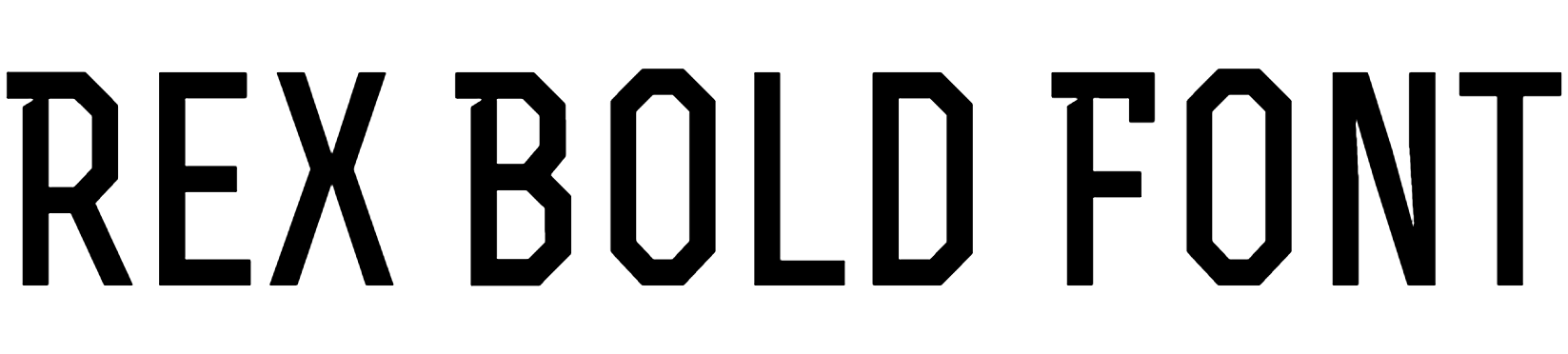
Rex Bold
Rex Bold is a fancy font created by Svet Simov (2012). Bold and full of character, it's built to stand out rather than blend in. You can download it for free and test it with your own words in the preview above.
- Designer: Svet Simov
- Languages: English, Spanish, French, Portuguese and Italian, plus Cyrillic characters
You get every letter from A to Z in both cases and all the numbers from 0 to 9, which means Rex Bold can handle full sentences, dates and prices. Common punctuation such as &, !, ? and @ is included as well. It also has the accented letters you need for Spanish, French, Portuguese and Italian. On top of that, it includes Cyrillic characters.
Designers usually reach for fonts like Rex Bold when they're making posters, logos and eye-catching headlines. Use it for one standout word or headline and let simpler fonts handle the rest.
Yes. Rex Bold includes the accented letters needed for Spanish, French, Portuguese and Italian, so it works for more than just English.